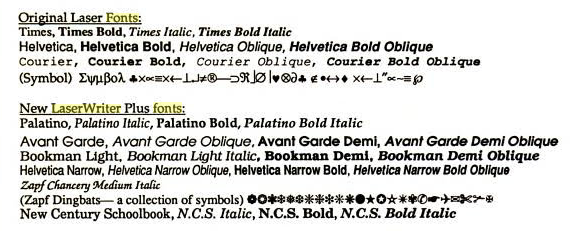
What were some of the first classical fonts that were optimized for the computer?
What were the first fonts that were not designed in the age of the computer to be transferred onto the computer. Make sense? :)
And if you think of regular desktop computers, it’s still tricky. The computers of the 1980s had just simple fixed-size pixel fonts, which could hardly look like “classical” fonts. So the fonts were actually embedded in the printers(!) like the Apple LaserWriter. Those printers used classical fonts:Screen Shot 2016-09-22 at 11.44.48.png